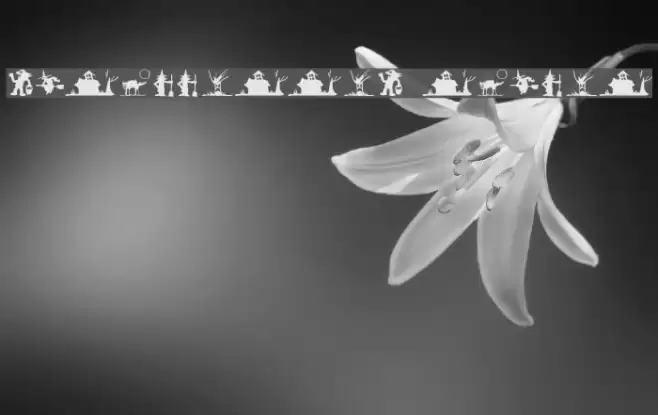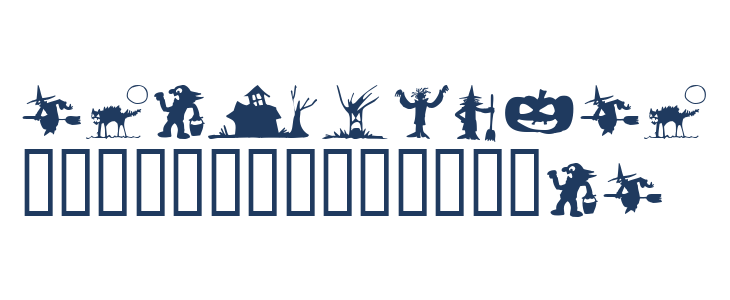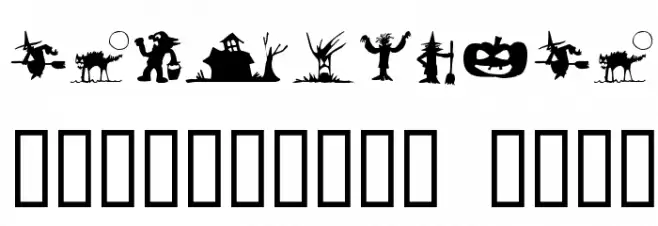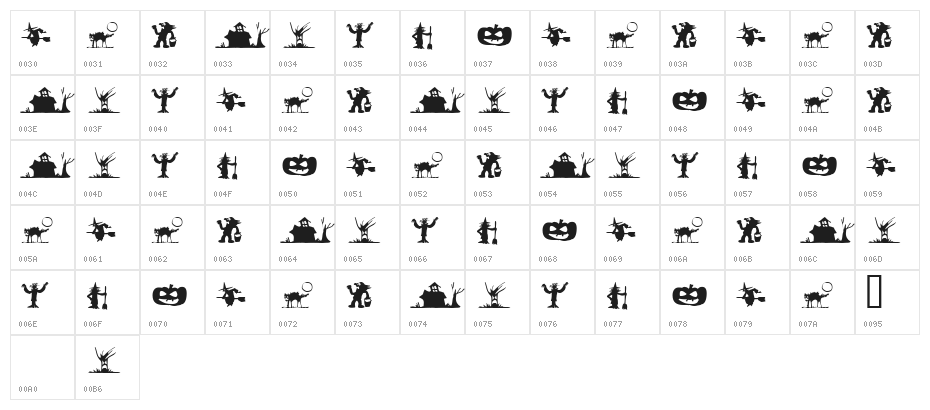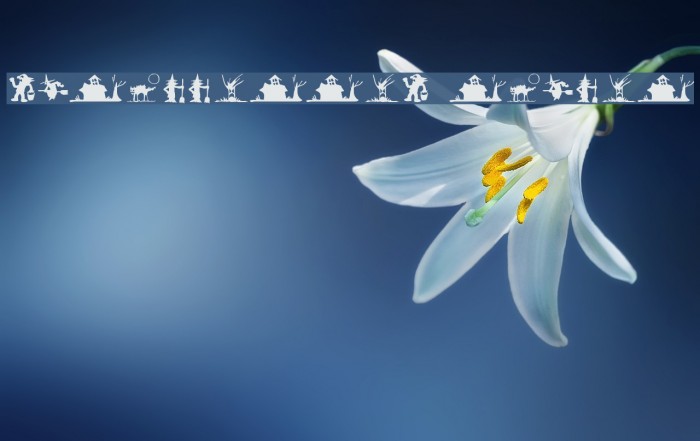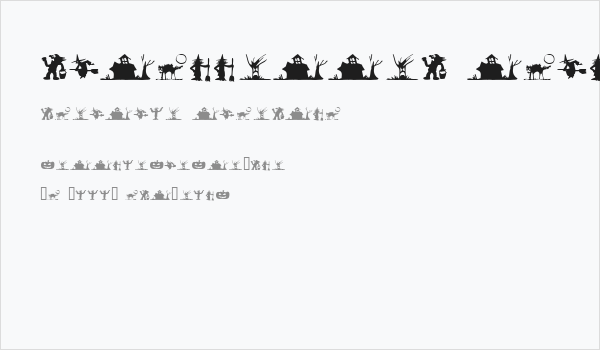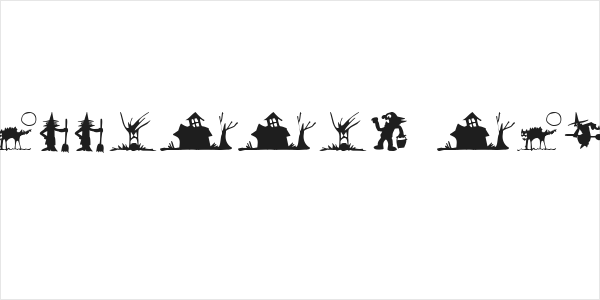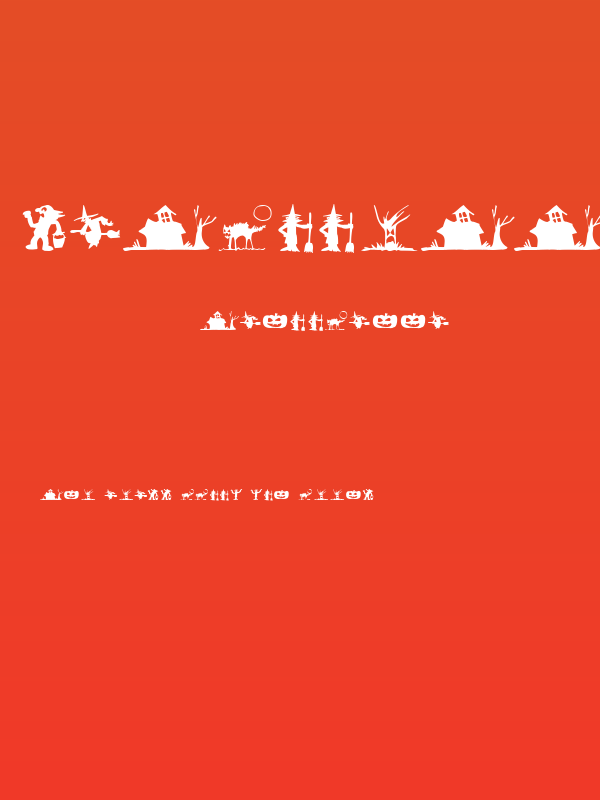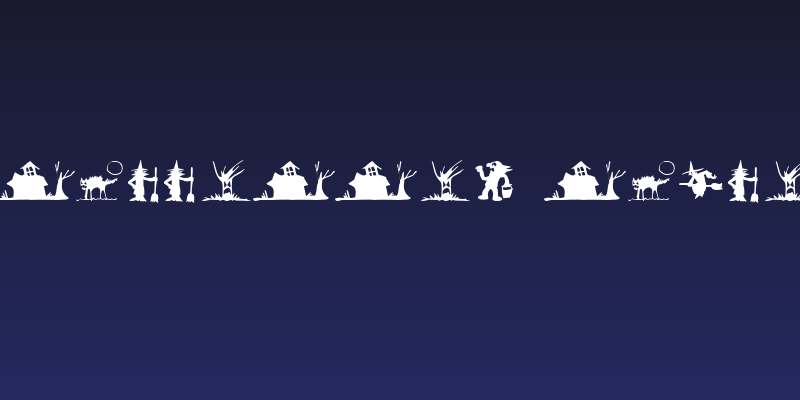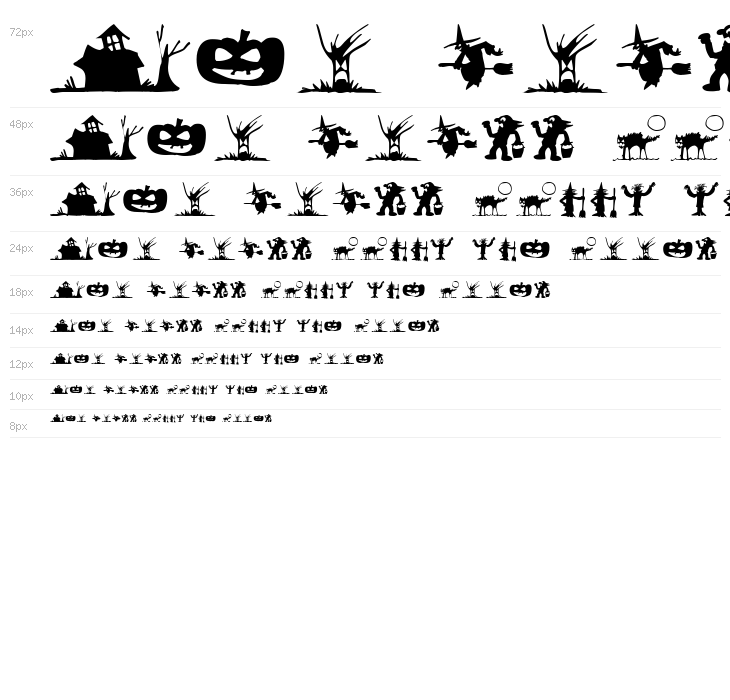
SilBooettes Tryout Font
SilBooettes Tryout Description
This is a decorative font featuring a series of Halloween-themed silhouettes. Each character is represented by a unique spooky image, such as witches, pumpkins, haunted houses, and eerie trees. The style is playful and whimsical, capturing the essence of Halloween with bold, black shapes that stand out against any background. These silhouettes are perfect for creating a festive and spooky atmosphere in any design project. The font does not include traditional alphanumeric characters but instead focuses on thematic imagery.
A decorative font with Halloween-themed silhouettes from Halloween fonts.
- Proposed Projects: Ideal for Halloween party invitations, themed posters, event flyers, and seasonal decorations.
- Use Case: Logos, Headlines, Decorative elements